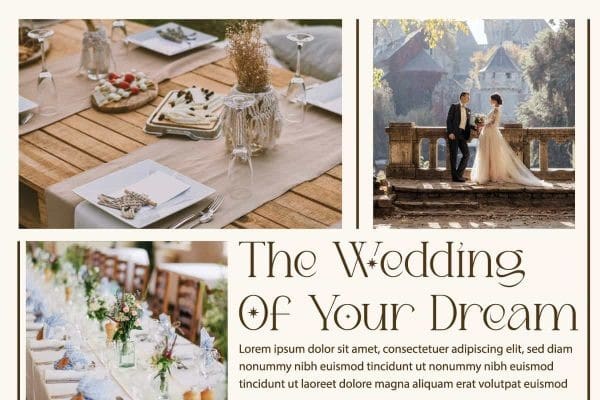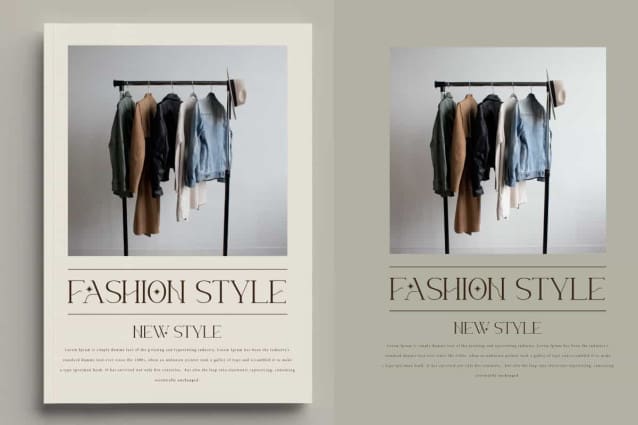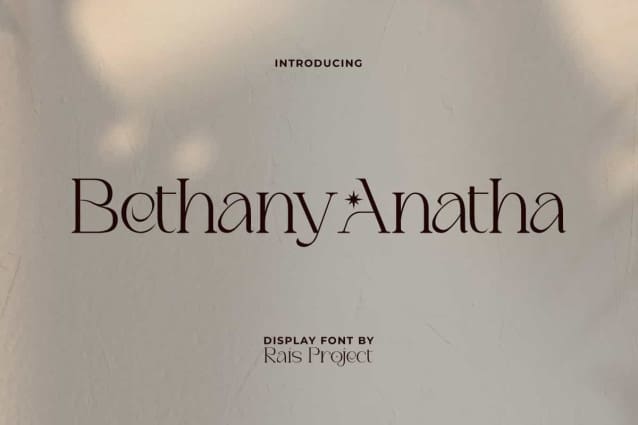
Bethany Anatha Font
Bethany Anatha Font is an elegant beautiful serif display font, created nicely by RaisProject. This font leaves a luxurious impression with the addition of a star on certain characters. It will be good for any designs, such as brand image, cover, custom design, flyer, invitation, label, magazine, marketing material, menu, poster, product packaging, quotes, signage, stationery, website page, and more!